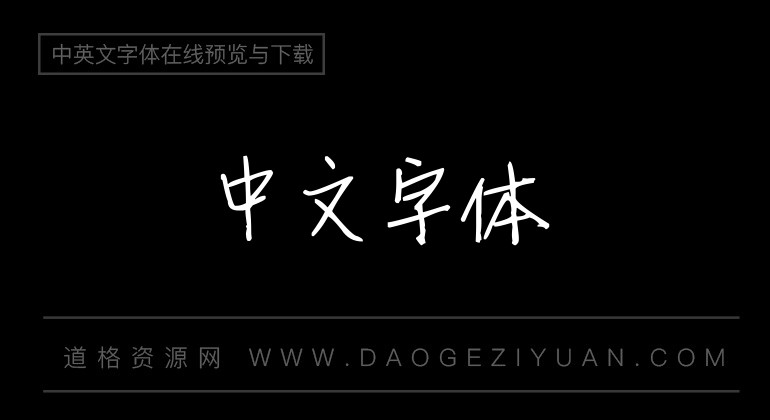
Xindi Chibi Maruko Primary School Edition New
The new font of Xindi Xiaowanzi Primary School Edition is a primary school edition font with exquisite design, fresh and bright, small size and easy to read. With its fresh design, combined with the classic style of Xindi Maruko, it provides a clearer and more interesting reading experience for primary school students, making it easier for primary school students to understand the meaning of words in the process of reading. Its font features are more concise, compact, and more details, more refined, and easier to read.
Xindi Chibi Maruko Primary School Edition New is a very good handwriting art font, with a good visual sense, suitable for cultural propaganda design, commercial brand advertising and product packaging design and personalized text typesetting and other more scenes.